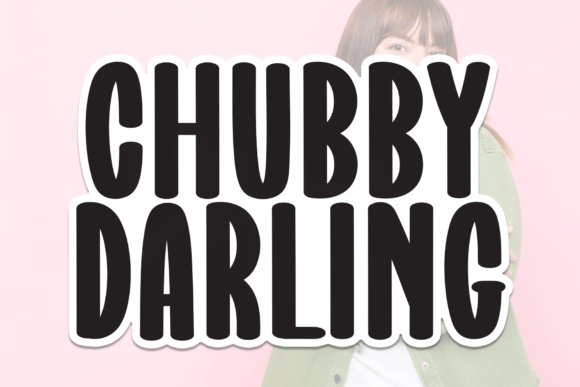
Chubby Darling Font: A Neat and Casual Sans-Serif for Modern Designs
In the world of typography, fonts play a crucial role in conveying the tone and personality of a design. With numerous font options available, designers often seek unique and versatile typefaces that can elevate their projects. One such font that has gained attention for its simplicity and warmth is the Chubby Darling Font. This article will explore the features, benefits, and uses of Chubby Darling, a neat and casual sans-serif font perfect for various design projects.
What is Chubby Darling Font?
Chubby Darling is a modern sans-serif font designed to combine simplicity with a touch of warmth. Its clean lines and balanced proportions make it an excellent choice for designers seeking a friendly and approachable typography style. The font’s neat and casual appearance allows it to bring a fresh and versatile look to various design projects, from digital content to print materials.
Key Features of Chubby Darling Font
- Clean Lines: Chubby Darling’s clean lines provide a clear and readable appearance, making it suitable for body text and headings.
- Balanced Proportions: The font’s balanced proportions ensure a harmonious and aesthetically pleasing look, allowing it to complement various design styles.
- Warm and Friendly Vibe: Chubby Darling exudes a warm and friendly vibe, making it perfect for designs that require a approachable tone.
- Modern and Versatile: The font’s modern design and versatility make it an excellent choice for a wide range of design projects, from branding and advertising to digital content and print materials.
Benefits of Using Chubby Darling Font
Chubby Darling offers several benefits that make it an attractive choice for designers. Some of the key advantages include:
- Improved Readability: The font’s clean lines and balanced proportions ensure excellent readability, making it suitable for body text and headings.
- Enhanced Visual Appeal: Chubby Darling’s warm and friendly vibe adds a touch of personality to designs, making them more visually appealing and engaging.
- Versatility: The font’s modern design and versatility make it an excellent choice for a wide range of design projects, allowing designers to use it across various platforms and applications.
- Easy to Pair: Chubby Darling can be easily paired with other fonts, making it a great addition to any typography repertoire.
Uses of Chubby Darling Font
Chubby Darling’s versatility makes it suitable for various design projects, including:
- Branding and Advertising: The font’s modern and friendly appearance makes it an excellent choice for branding and advertising projects, such as logos, brochures, and flyers.
- Digital Content: Chubby Darling is perfect for digital content, including website headers, blog posts, and social media graphics.
- Print Materials: The font’s clean lines and balanced proportions make it suitable for print materials, such as business cards, posters, and book covers.
- Packaging Design: Chubby Darling’s warm and friendly vibe makes it an excellent choice for packaging design, adding a touch of personality to product labels and packaging.
Pairing Chubby Darling with Other Fonts
Chubby Darling can be easily paired with other fonts to create a unique and visually appealing typography style. Some font pairing suggestions include:
- Serif Fonts: Pairing Chubby Darling with serif fonts, such as Georgia or Merriweather, creates a harmonious and classic look.
- Script Fonts: Combining Chubby Darling with script fonts, such as Pacifico or Great Vibes, adds a touch of elegance and sophistication.
- Display Fonts: Pairing Chubby Darling with display fonts, such as Arial Black or Impact, creates a bold and attention-grabbing typography style.
In conclusion, Chubby Darling Font is a neat and casual sans-serif font that combines simplicity with a touch of warmth. Its clean lines, balanced proportions, and friendly vibe make it an excellent choice for various design projects. With its versatility, readability, and visual appeal, Chubby Darling is a great addition to any typography repertoire. Whether you’re designing a website, creating a brand identity, or working on a print project, Chubby Darling is a font worth considering.